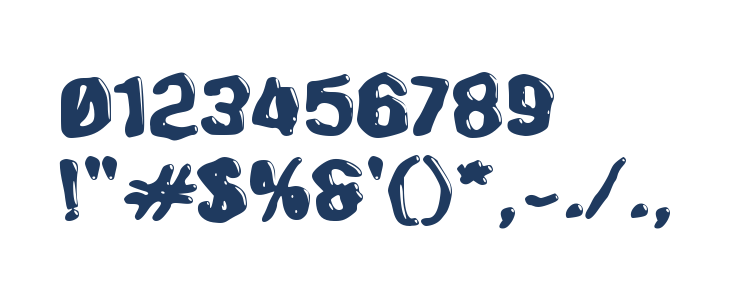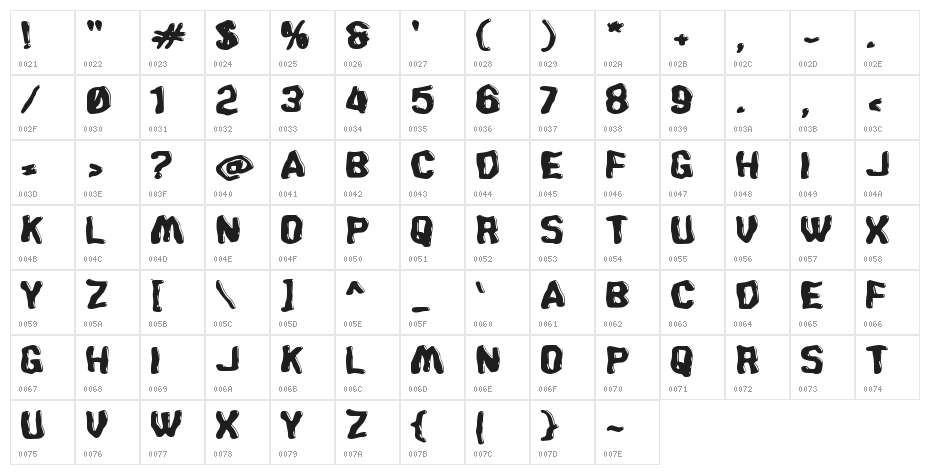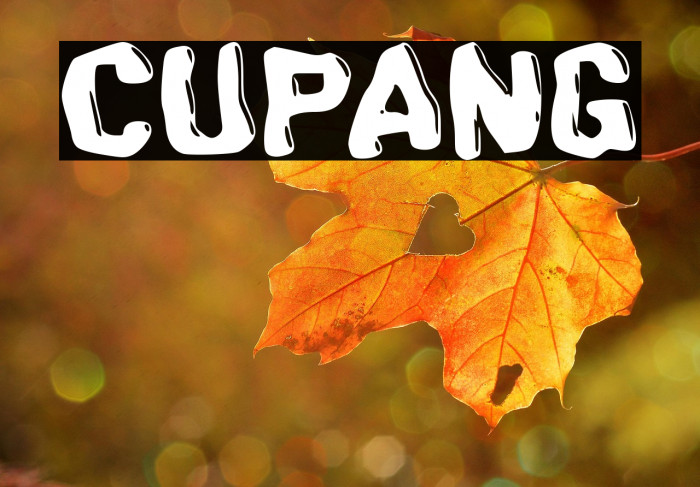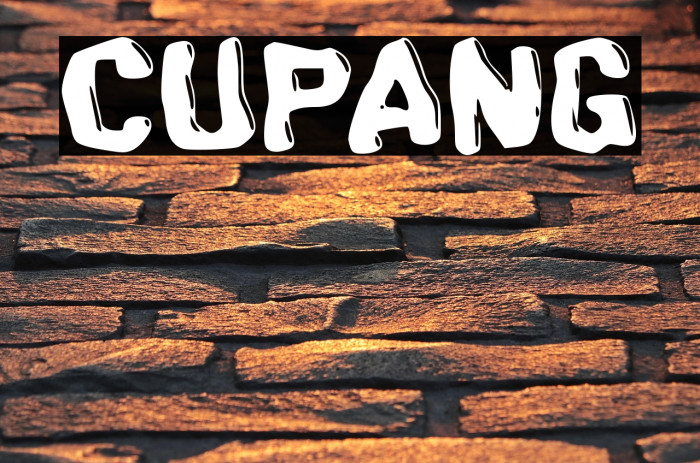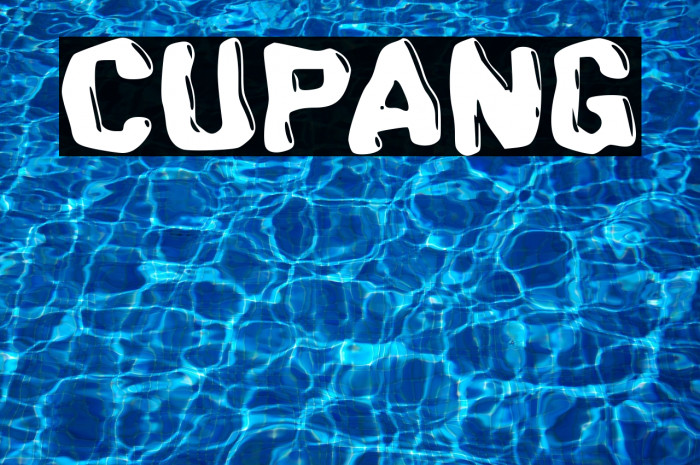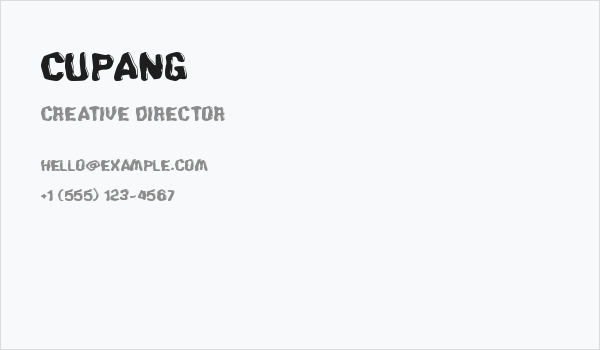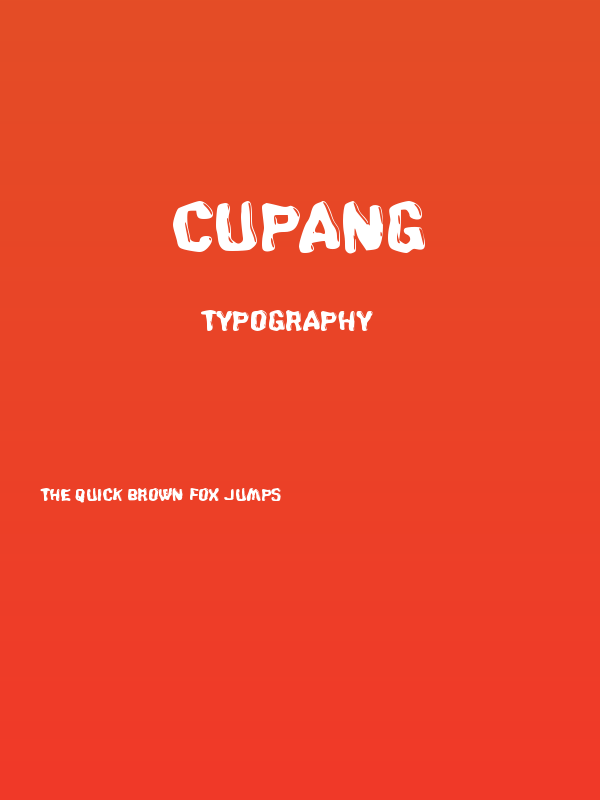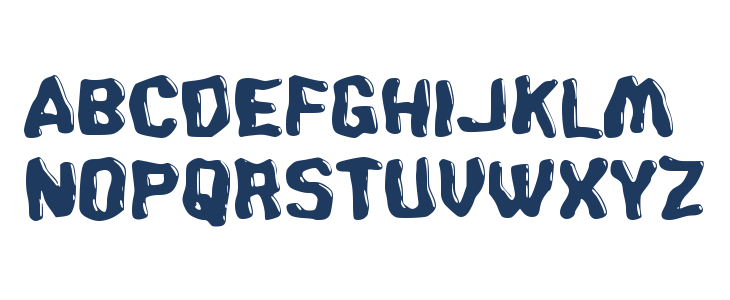
Cupang Font
Cupang Description
This font features a bold and playful design with a unique, organic texture that resembles brush strokes or ink splatters. The characters are slightly irregular, giving them a hand-drawn appearance that adds a sense of movement and energy. The uppercase and lowercase letters maintain a consistent style, with rounded edges and varying stroke widths that create a dynamic visual impact. The numbers and special characters follow the same aesthetic, ensuring a cohesive look across all text elements. This font's distinctive style makes it ideal for projects that require a touch of creativity and individuality.
| Proposed Projects | Ideal for creative projects such as posters, album covers, children's books, and branding materials that require a unique and energetic style. |